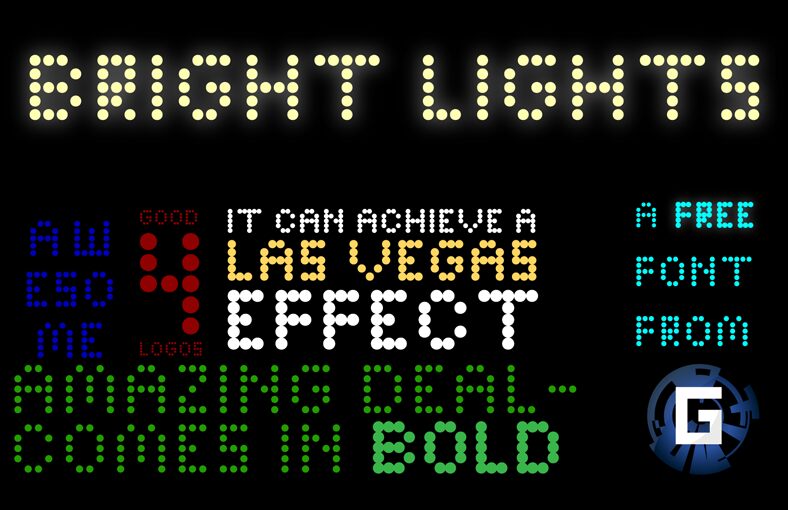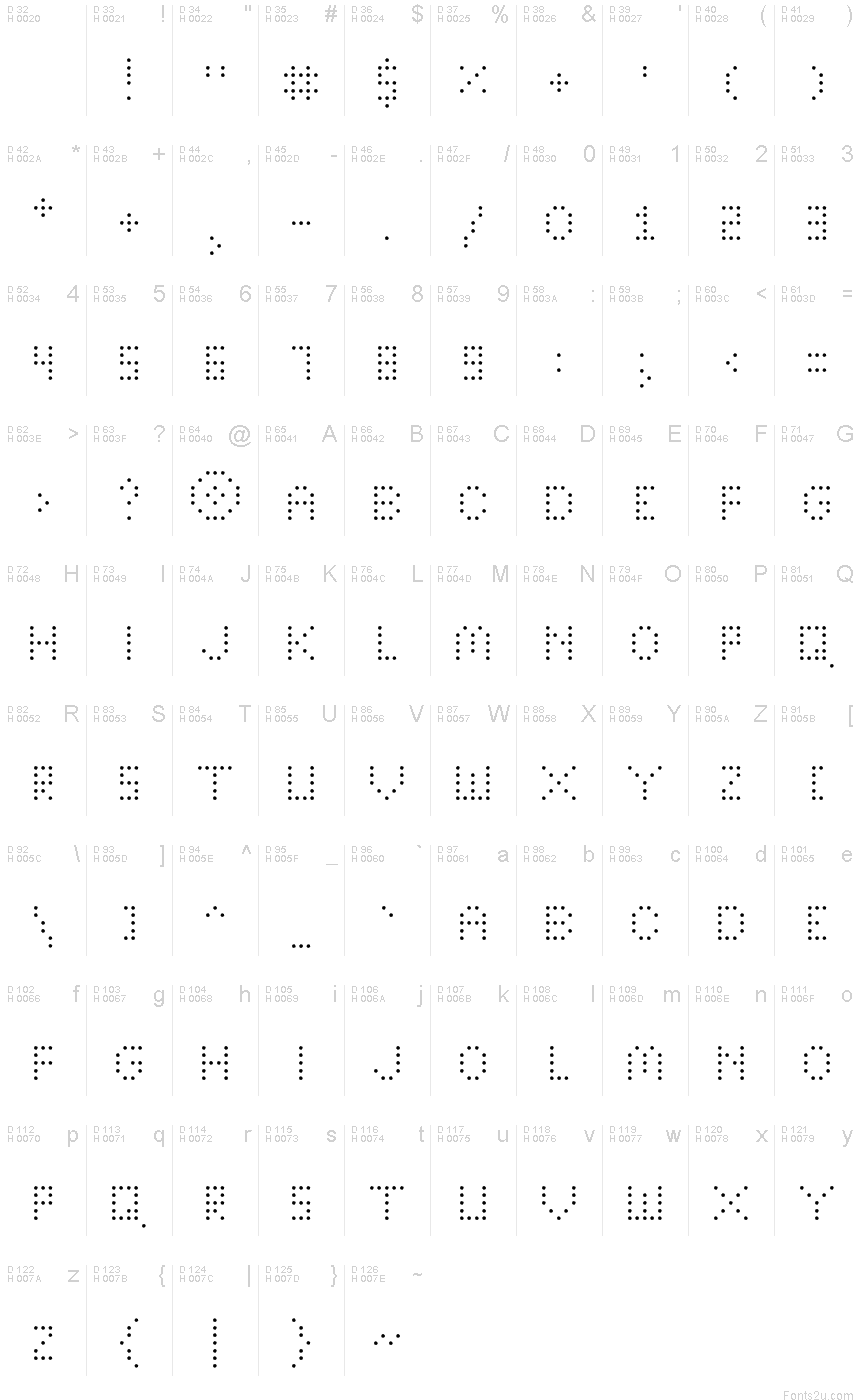
Bright Lights Thin by supermattyb of FSI FontShop International GmbH is a free dot-matrix pixel font with the spare look of a large-scale electronic marquee. Its widely spaced circular lights trace broad, open letters, and the gaps lend the design a blinking, intermittent quality rather than a solid screen texture.
An event poster is its most convincing setting, especially for concerts, festival announcements, or late-night programs that borrow the language of brightly illuminated signs. The same dotted forms suit club branding, stage graphics, and digital promotions, where the repeated light motif can become part of the surrounding signage or moving animation.